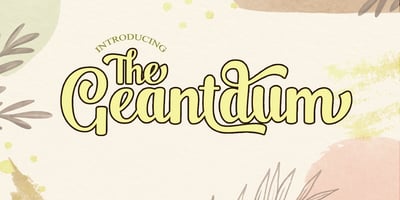
The Geantdum Font Family was designed by Teuku Zulfikar and published by Josstype. The Geantdum contains 1 styles and family package options. The Geantdum Script is modern script font, every single letters have been carefully crafted to make your text looks beautiful. With modern script style this font will perfect for many different project ex: quotes, blog header, poster, wedding, branding, logo, fashion, apparel, letter, invitation, stationery, etc.The Geantdum Script including alternate glyph and beautiful swirl.How to access alternate glyphs:Windows Character Map: https://www.youtube.com/watch?v=BScPsiubM1kAdobe Illustrator: https://www.youtube.com/watch?v=y5XTaWYwWA4Thank you for your purchase! and please let me know if you have any questions. via email: joelpopon@gmail.com